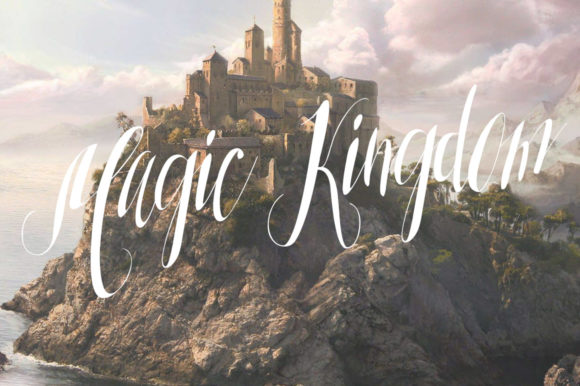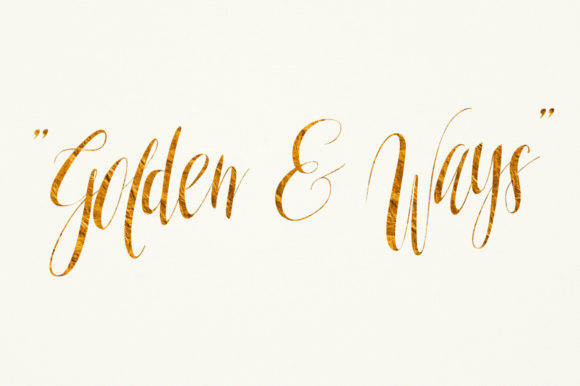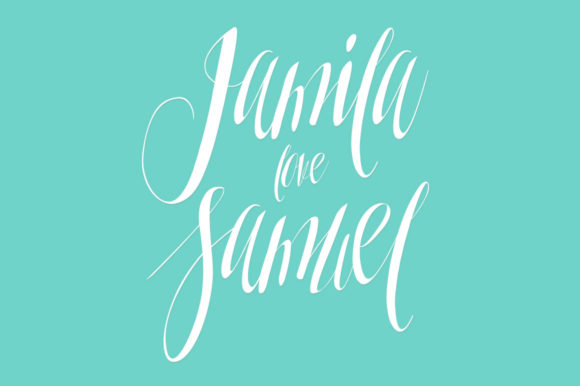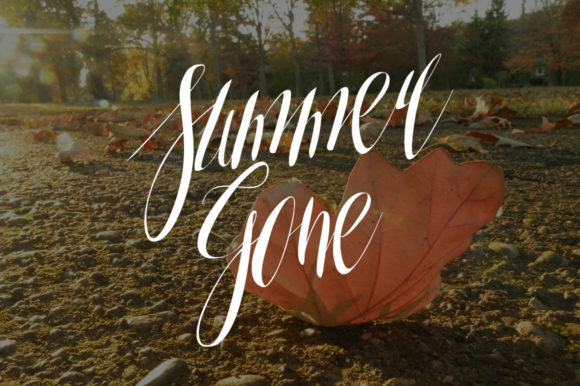
HomeScript FontsSoulmater Font Script Fonts Soulmater Font FacebookXPinterestWhatsApp Soulmater Font Poster 2 Soulmater Font Poster 3 Soulmater Font Poster 4 Soulmater Font Poster 5 About Soulmater Font Soulmater is an incredibly stunning script font with beautiful swashes. Get inspired by its stunning lettering! DOWNLOAD ON CREATIVE FABRICAThis font is sold and delivered by Creative Fabrica. Font Canyon may earn a commission if you buy through this link. People also explored Leafdream Font Relaxing Font Hello Rainbow Font Stephanie Font Kashtille Vicstars Font Werk Hellifa Font Beauty Magnolia Flower Monogram Font White Polka Font 320 0 TagsSoulmater Font Previous articleDestanyd FontNext articleDelight Font LEAVE A REPLY Cancel reply Comment: Please enter your comment! Name:* Please enter your name here Email:* You have entered an incorrect email address! Please enter your email address here Website: Save my name, email, and website in this browser for the next time I comment. Personal Use Free Heart Memory Personal Use Free Read more about this font Denisha Personal Use Free Read more about this font Black Personal Use Free Read more about this font Bellarin Personal Use Free Read more about this font BLOG Modern Sans-Serif Fonts That Brands Love in 2025 In 2025, modern sans-serif fonts remain a top choice for brands looking to project clarity, professionalism, and... 5 Fonts That Will Dominate Design Trends in 2026 Top 7 Google Fonts Alternatives for Faster and Privacy-Friendly Web Design (2025) Best Fonts for T-Shirt Design – Top 2025 Picks